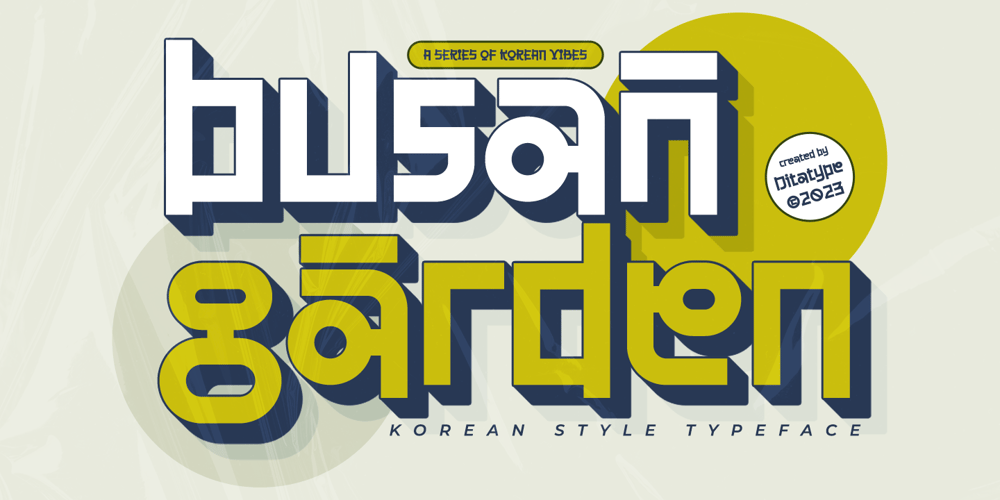
Busan Garden Font Family was designed by Donis Miftahudin and published by Ditatype. Busan Garden contains 1 styles and family package options. Busan Garden is a bold display font that brings the spirit of Busan to life. Inspired by the vibrancy of Korean aesthetics, this font exudes strength and cultural richness, making it a captivating choice for designs that demand a powerful and impactful presence.The characters in Busan Garden stand tall with a robust and thick weight, portraying a sense of confidence and solidity. The sturdy letterforms, characterized by sharp angles, create a visually striking appearance that captures the dynamic energy found in Korean design. Busan Garden is not just a font; it’s a visual journey through the streets of Busan. In addition, enjoy the features here.Features: Alternates Ligature Multilingual Supports PUA Encoded Numerals and Punctuations Busan Garden fits in headlines, logos, posters, flyers, branding materials, greeting cards, print media, editorial layouts, and many more designs. Find out more ways to use this font by taking a look at the font preview.Thanks for purchasing our fonts. Hopefully, you have a great time using our font. Feel free to contact us anytime for further information or when you have trouble with the font. Thanks a lot and happy designing.